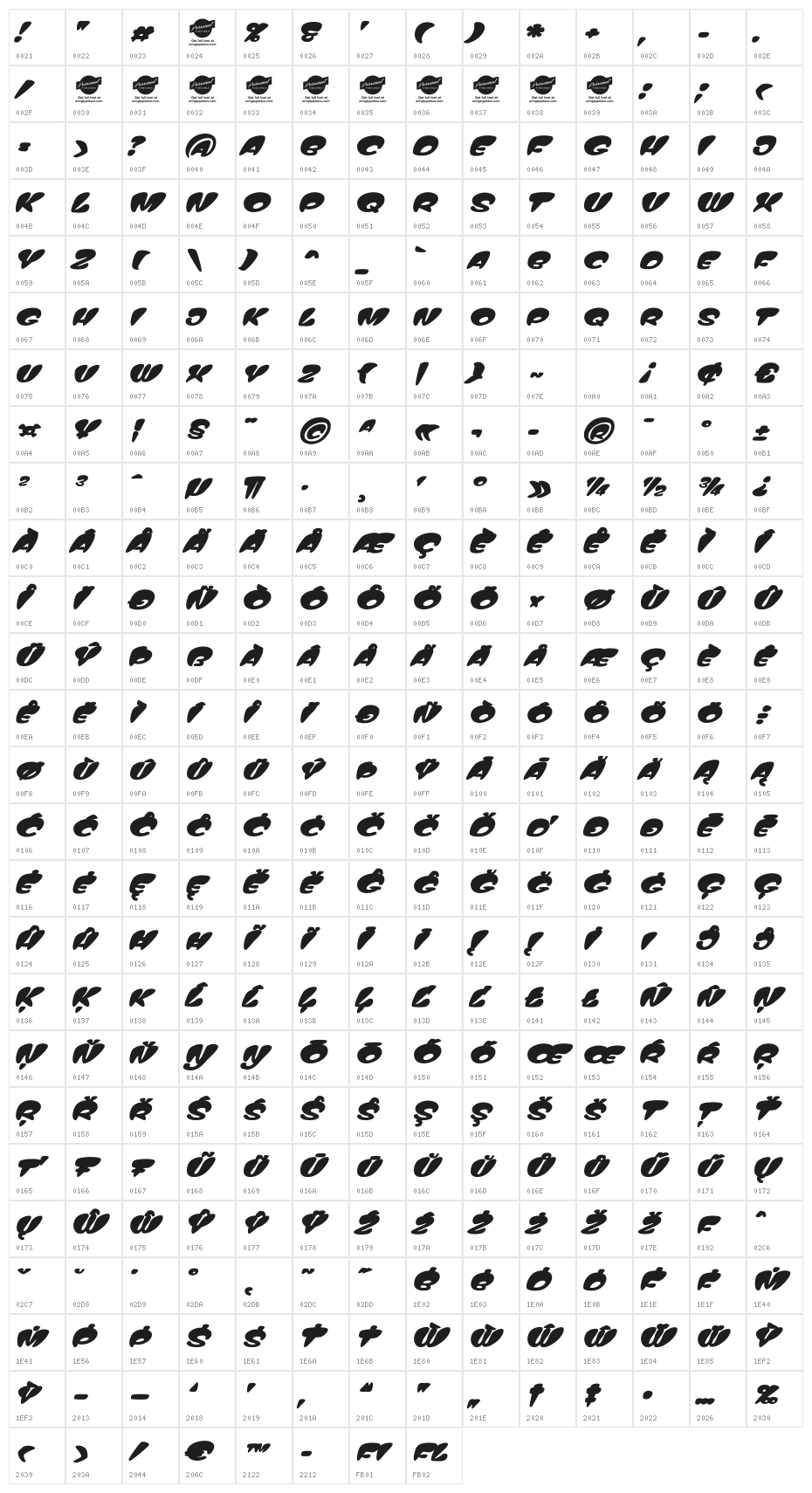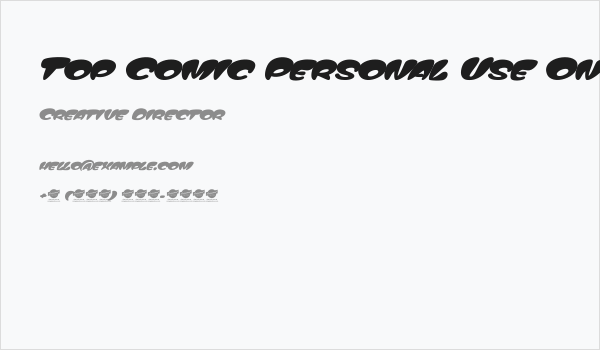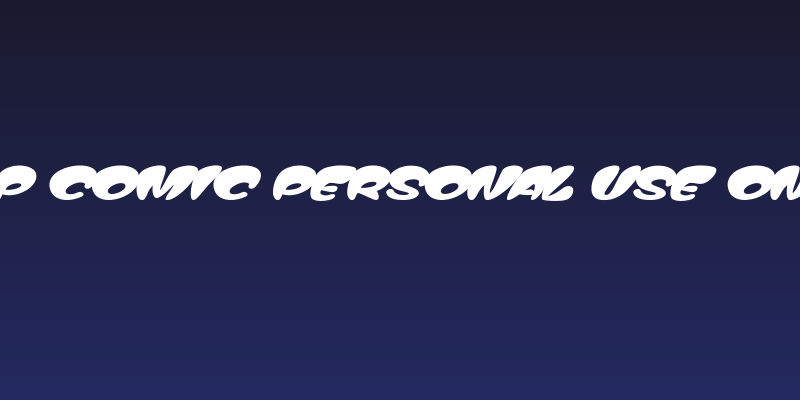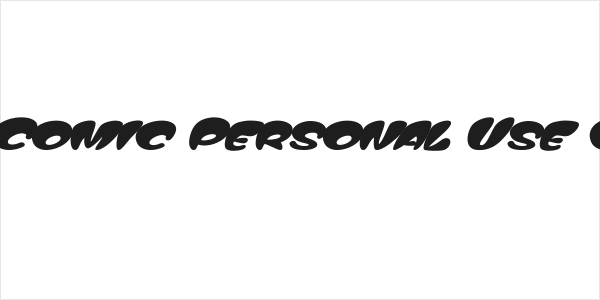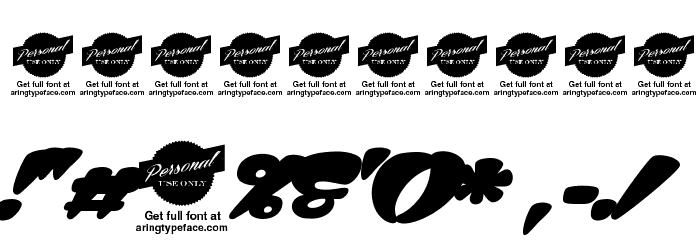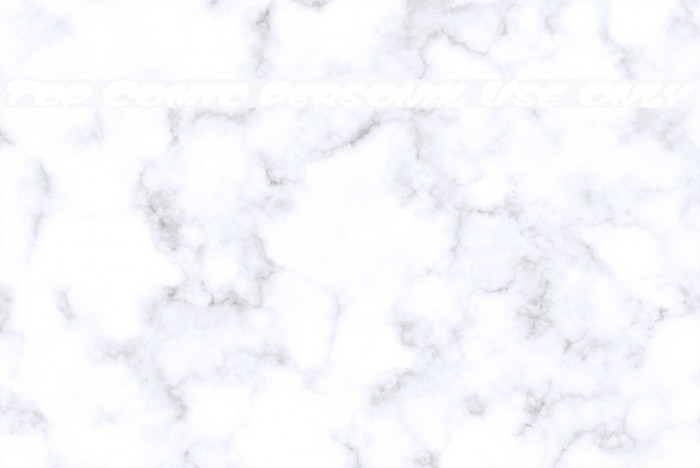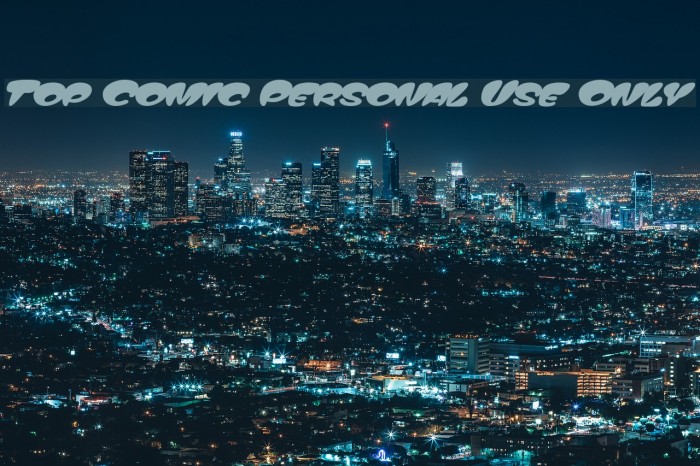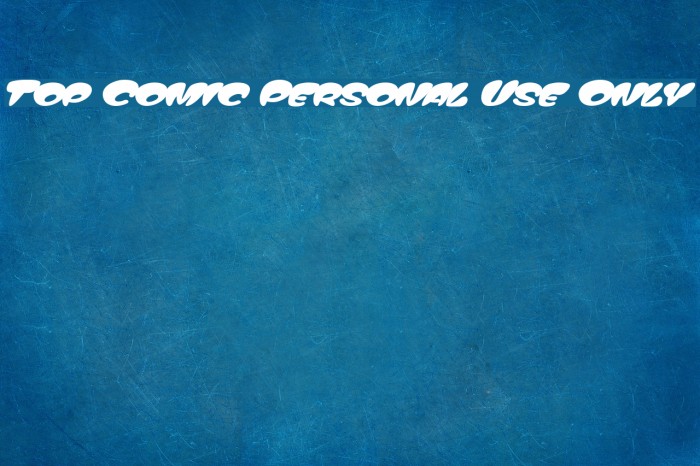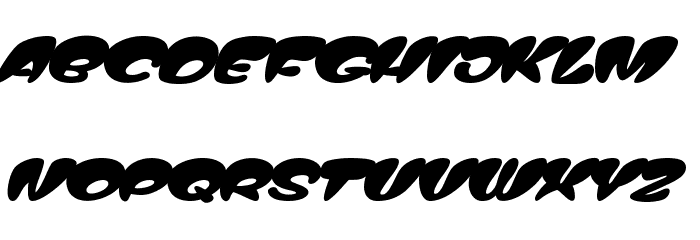
Top Comic Personal Use Only Font
Top Comic Personal Use Only Description
This font features a bold, playful style with thick, rounded strokes that give it a comic-like appearance. The letters are closely spaced, creating a cohesive and energetic look. The uppercase and lowercase characters maintain a consistent style, with exaggerated curves and a slightly slanted orientation. The numbers and special characters follow the same design principles, ensuring uniformity across the font. Its dynamic and informal nature makes it suitable for creative and lighthearted projects.
| Overall Style | Playful, Comic |
| Proposed Projects | Ideal for comic books, children's books, playful branding, and posters. |